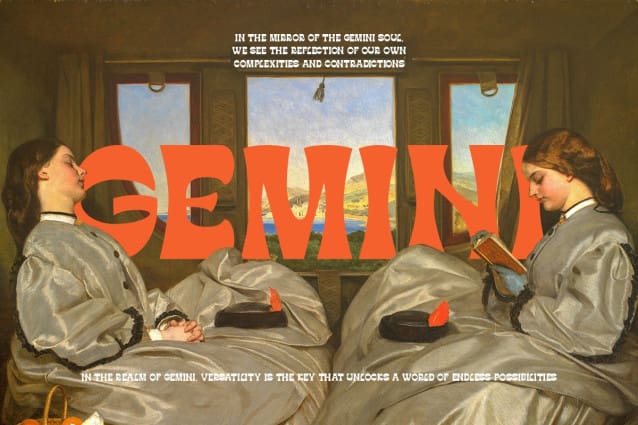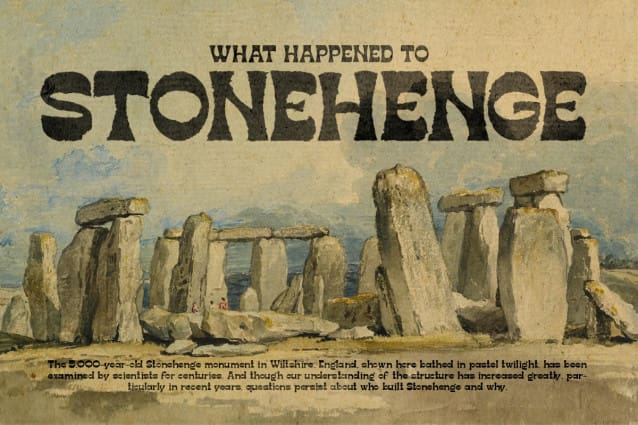
KLEAR DISPLAY TYPEFACE
Klear Display Font – A typeface that’s turning design conventions on its head! Inspired by the graceful flow of art nouveau, Klear is a perfect blend of quirkiness and elegance.
Whether you’re working on a formal project or something more avant-garde, Klear has you covered. With two styles to choose from – Regular and Outline, Klear gives your creativity a fresh canvas to shine